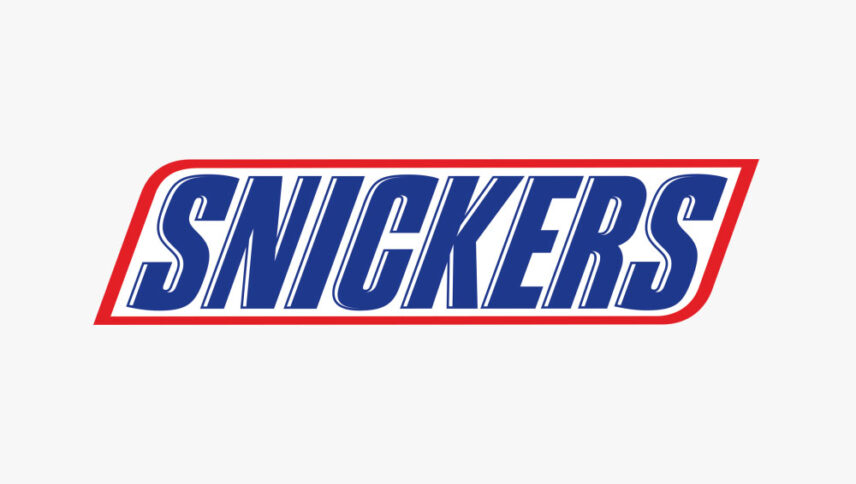
Snickers Font
What font is used in the Snickers logo?.
The logo font of Snickers chocolate is consists of a wordmark inside a rectangle with two curved edges. The wordmark affected in all capital letters, which were sharp and brutal. The lines of the typeface are refined and modernized, and the letters obtained a thin white shadowing, which adds volume and dynamics to the logo. This logo font is useful for car brands, rally competitions, product packaging and banner, and billboard advertising.